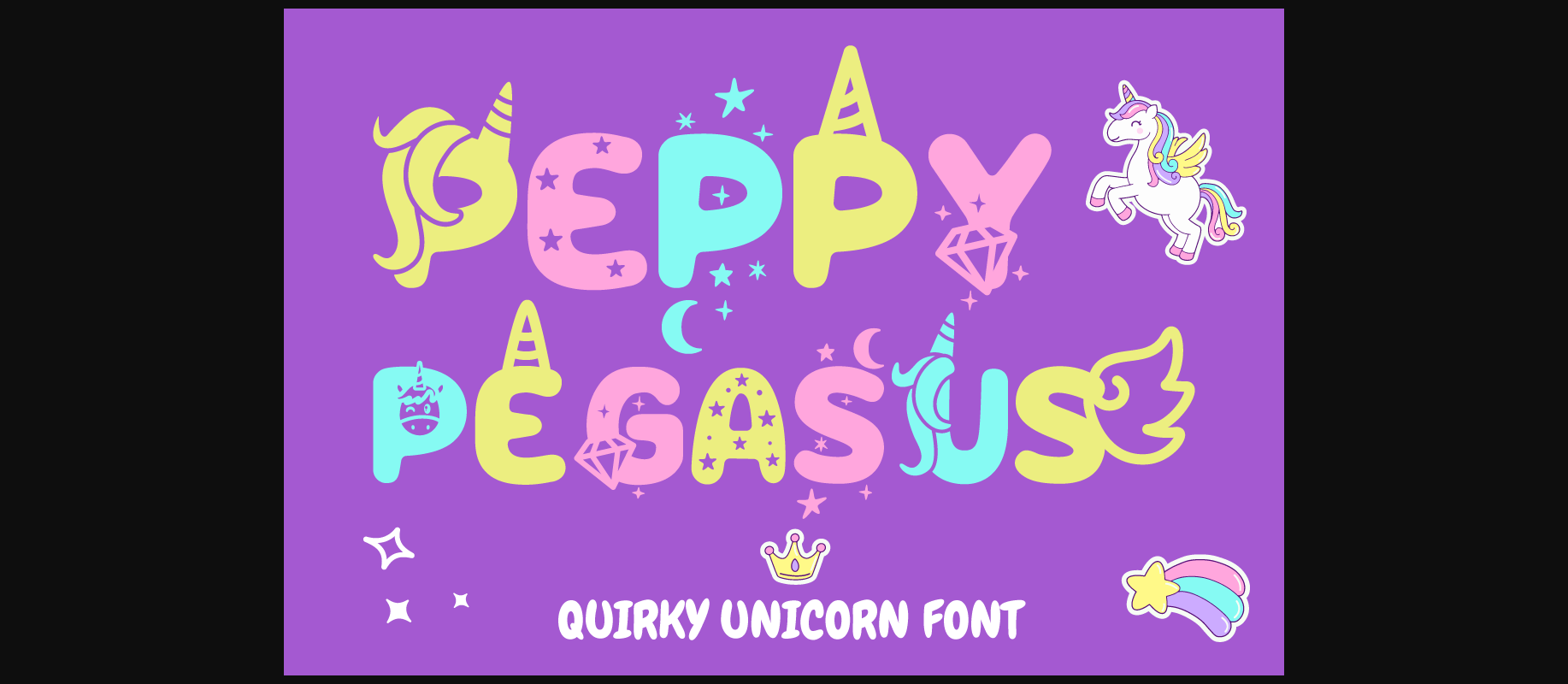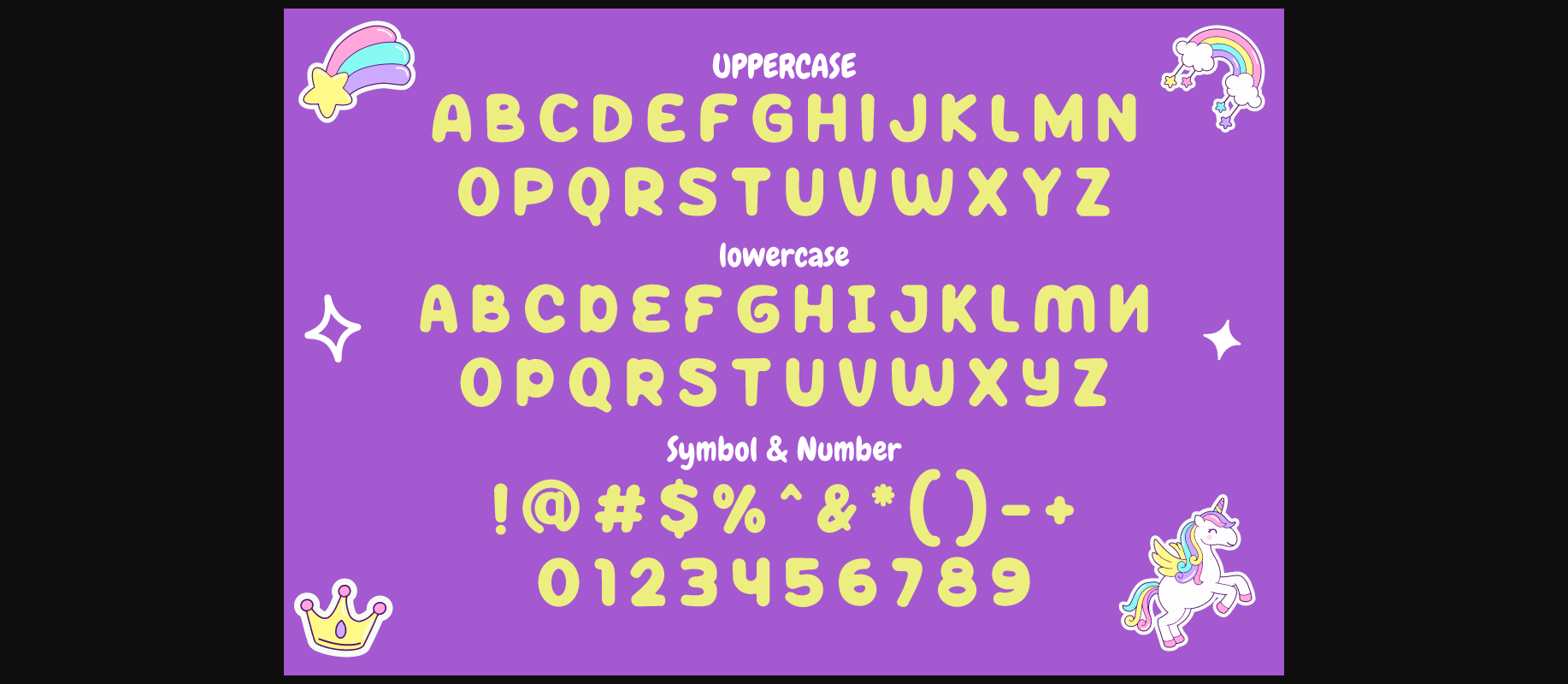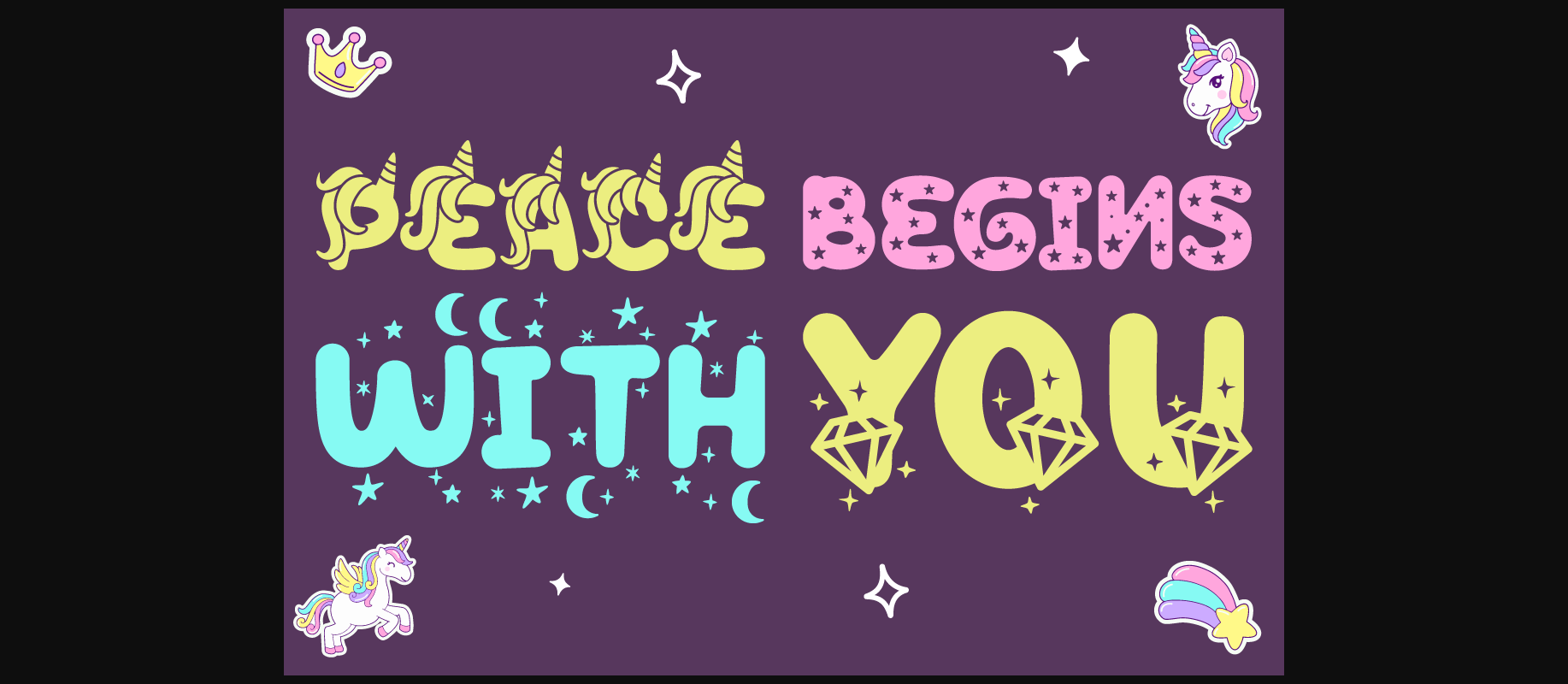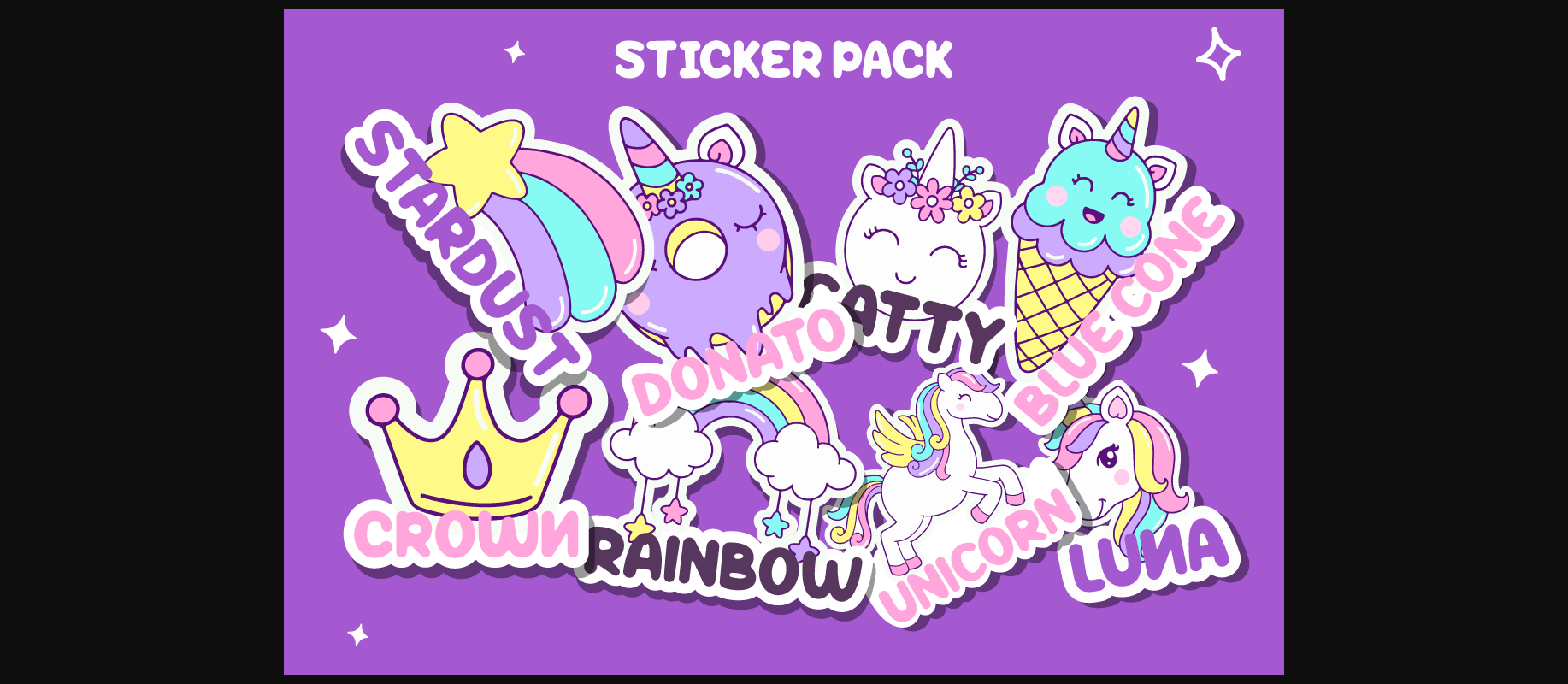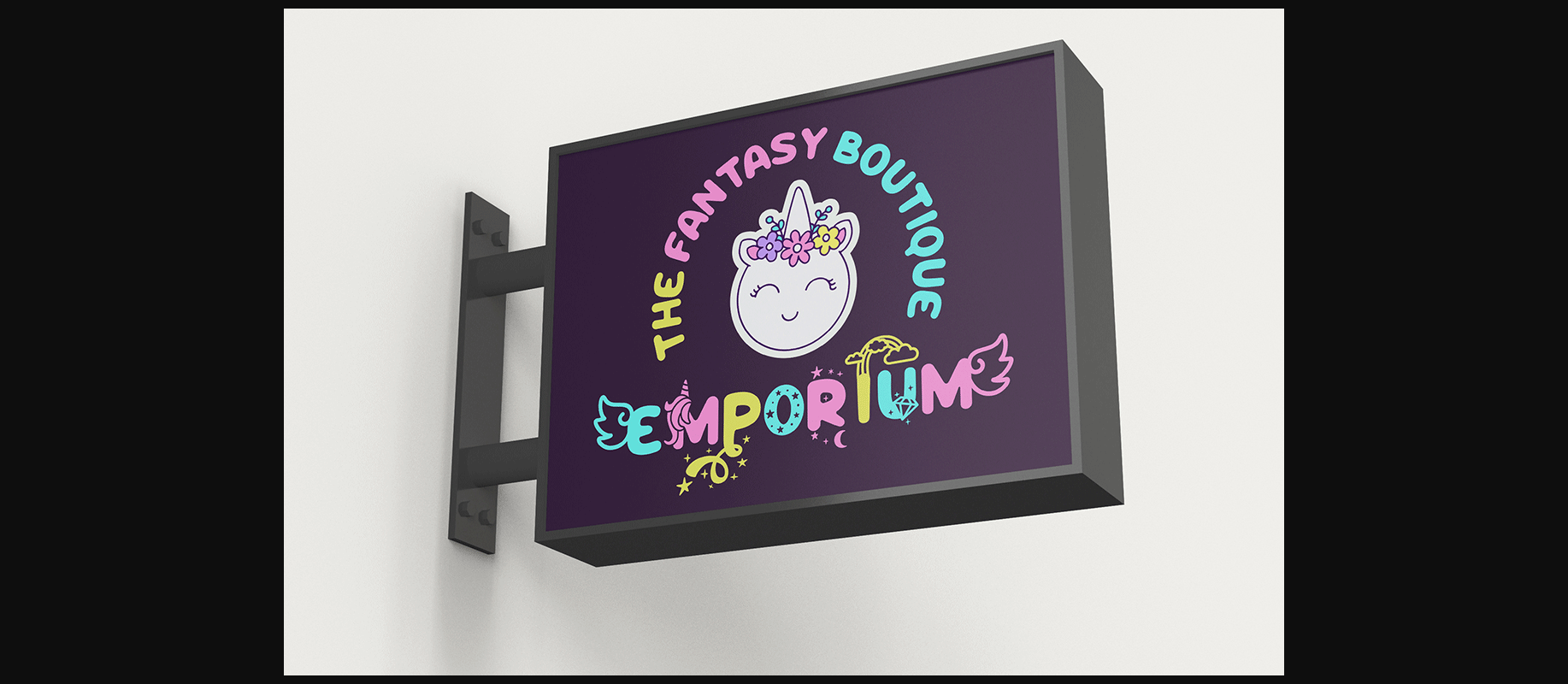
About Peppy Pegasus Font
Peppy Pegasus – Quirky Unicorn Theme Font is a charming typeface designed to transport you to the whimsical world of unicorns, pegasus, and rainbows. This font showcases playful, rounded, and soft letterforms that add an element of delight to your designs. It’s versatile and can be used on its own or paired with any of its nine enchanting variations.
With nine distinct variations inspired by pegasus, horses, horns, wings, rainbows, and magic, Peppy Pegasus is the perfect choice for children’s themes, crafting projects, and imaginative designs. It brings a sense of fun, playfulness, and a vibrant, colorful aesthetic to your creations.
This font is suitable for a wide range of projects, including logos, children’s themes, crafting, invitations, packaging, posters, titles, businesses, greeting cards, stickers, children’s books, magazines, and designs that explore the enchanting world of pegasus and imagination.
Peppy Pegasus will infuse your designs with the magic and wonder of the unicorn realm, making it perfect for all things imaginative.
With nine distinct variations inspired by pegasus, horses, horns, wings, rainbows, and magic, Peppy Pegasus is the perfect choice for children’s themes, crafting projects, and imaginative designs. It brings a sense of fun, playfulness, and a vibrant, colorful aesthetic to your creations.
This font is suitable for a wide range of projects, including logos, children’s themes, crafting, invitations, packaging, posters, titles, businesses, greeting cards, stickers, children’s books, magazines, and designs that explore the enchanting world of pegasus and imagination.
Peppy Pegasus will infuse your designs with the magic and wonder of the unicorn realm, making it perfect for all things imaginative.